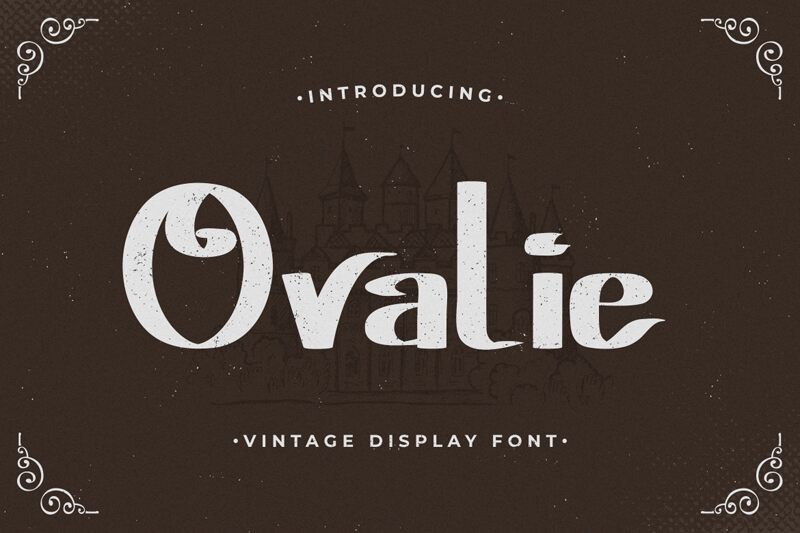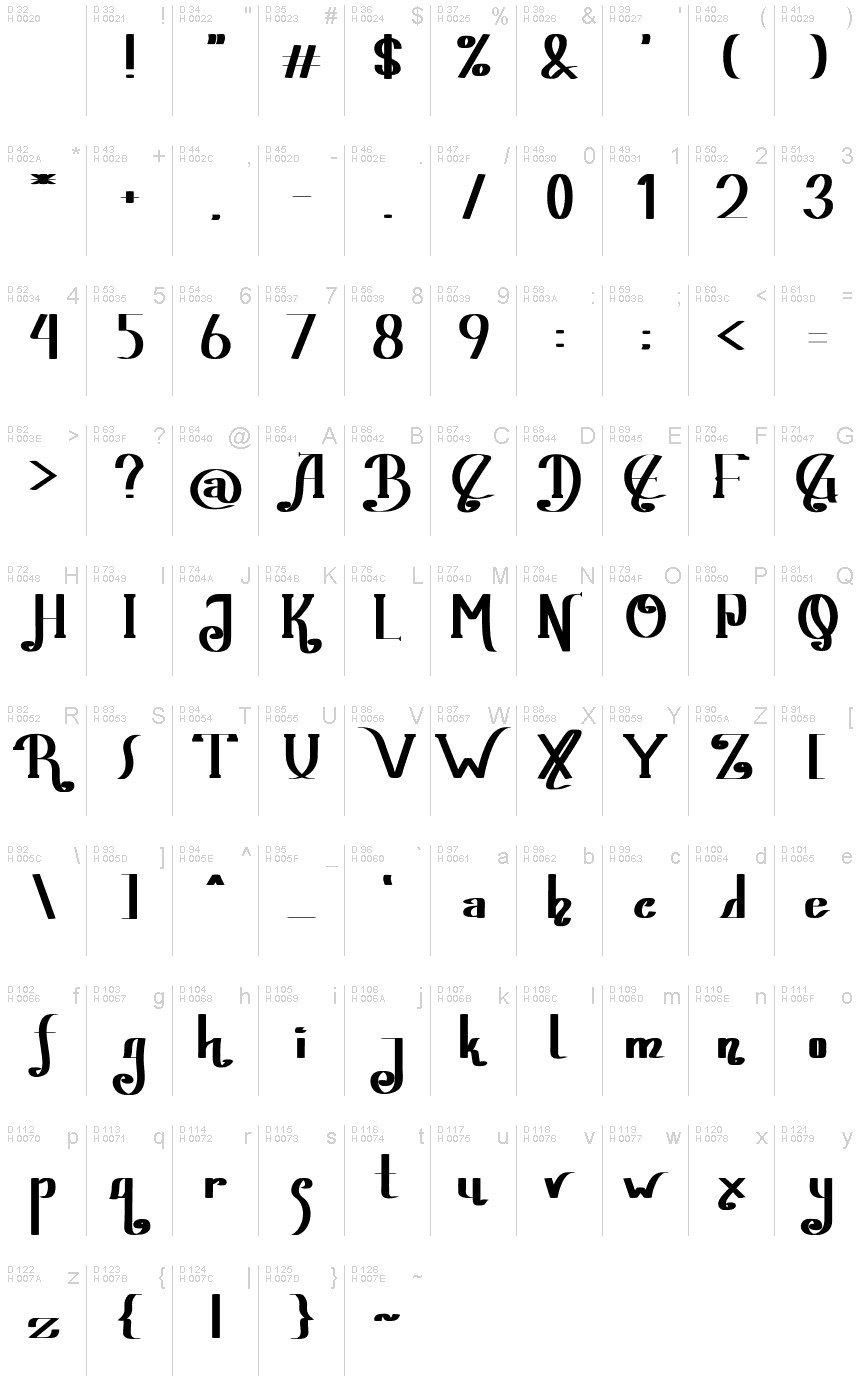
Ovalie
Ovalie is a vintage display font designed by Typefactory that was made by hand and inspired by classic posters.
Ovalie comes with uppercase, lowercase, numerals, symbols & punctuations, alternate, ligature and multilingual support.
Perfect to use for Logotype, Letterhead, Poster, Apparel Design, Labels, and many more designs.